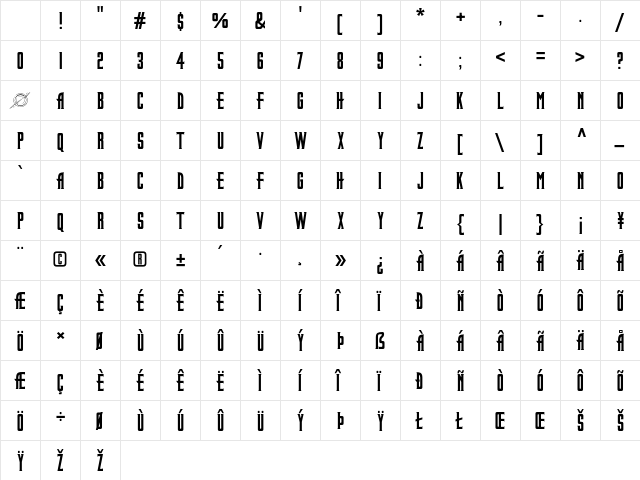
Complete Splash Gordon Regular glyph index. Displaying only characters natively supported by Splash Gordon Regular font.
Splash Gordon is a composed and adaptable typeface that performs quietly and consistently across a wide range of design contexts.